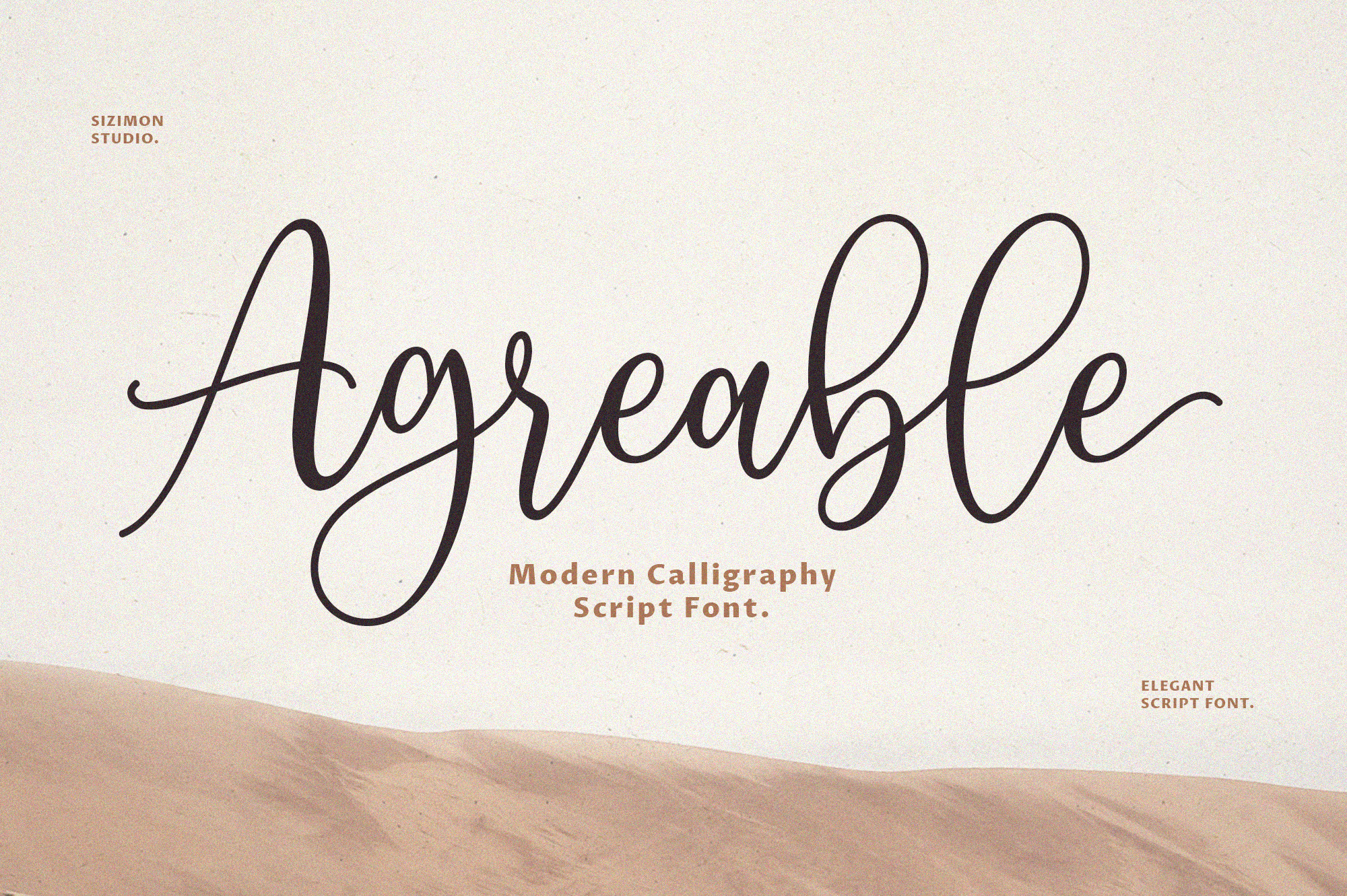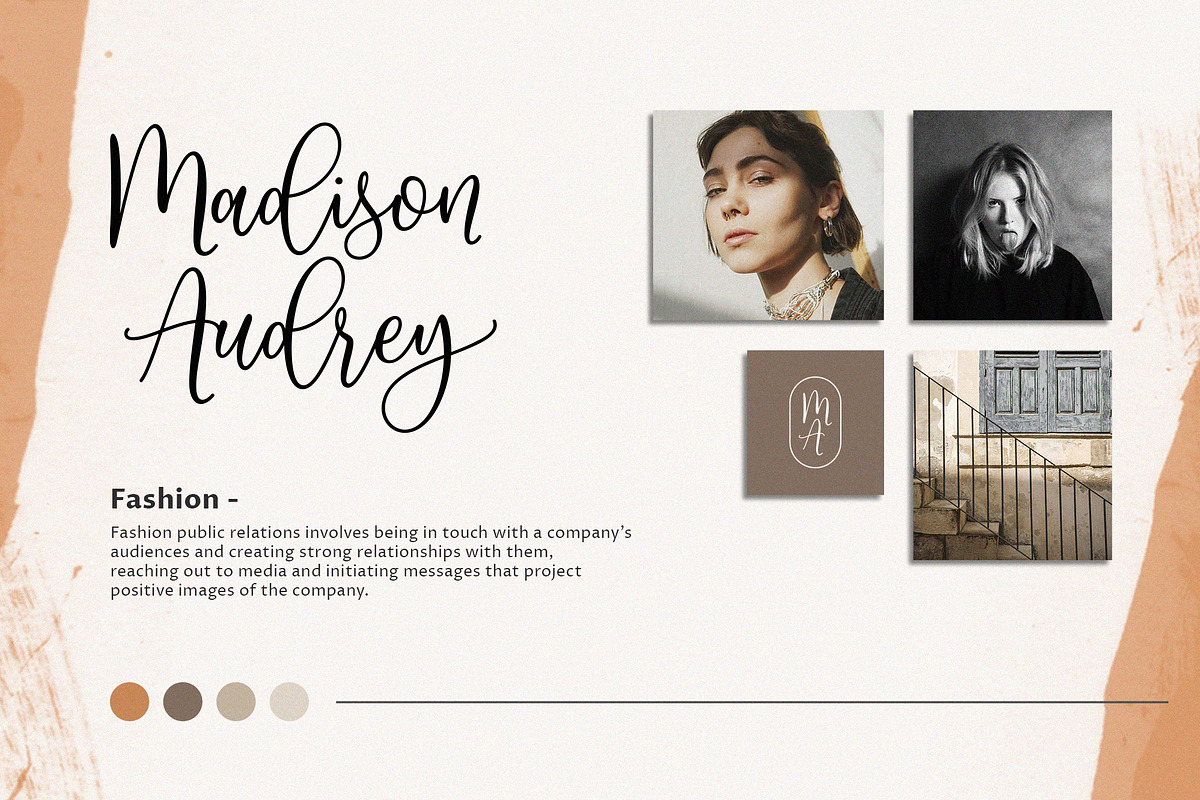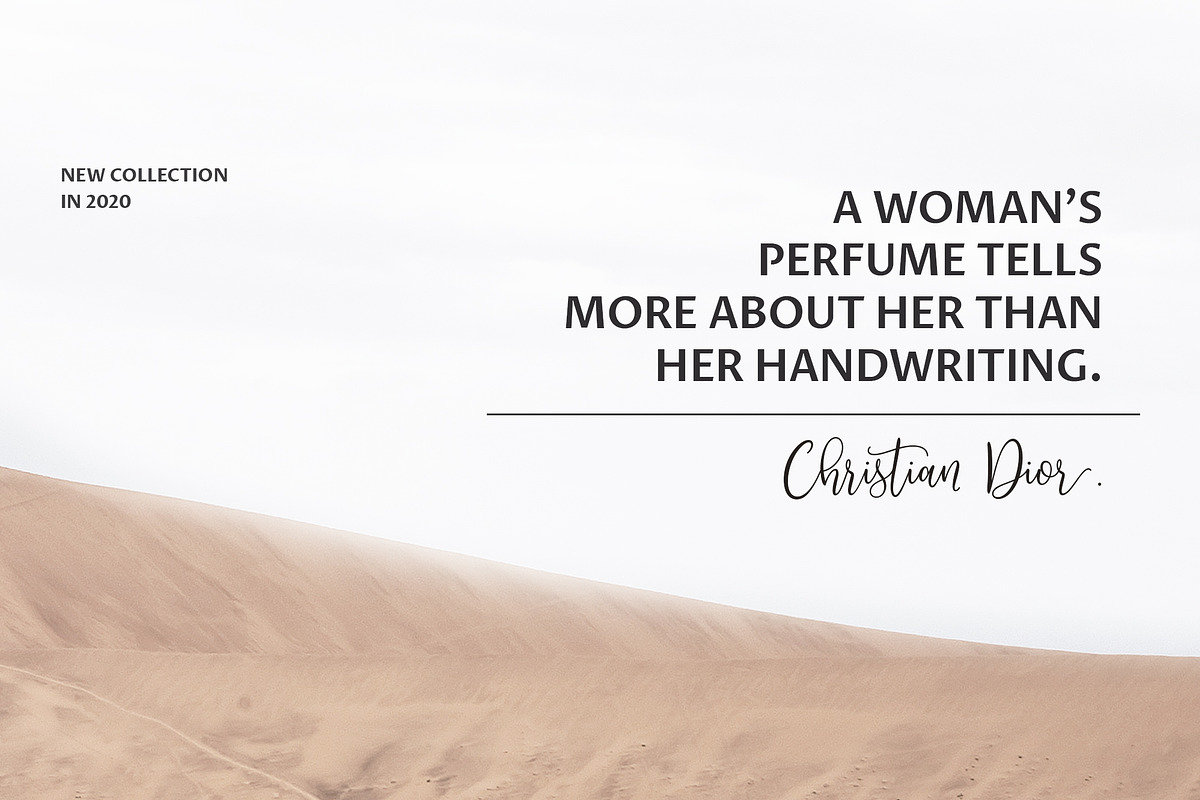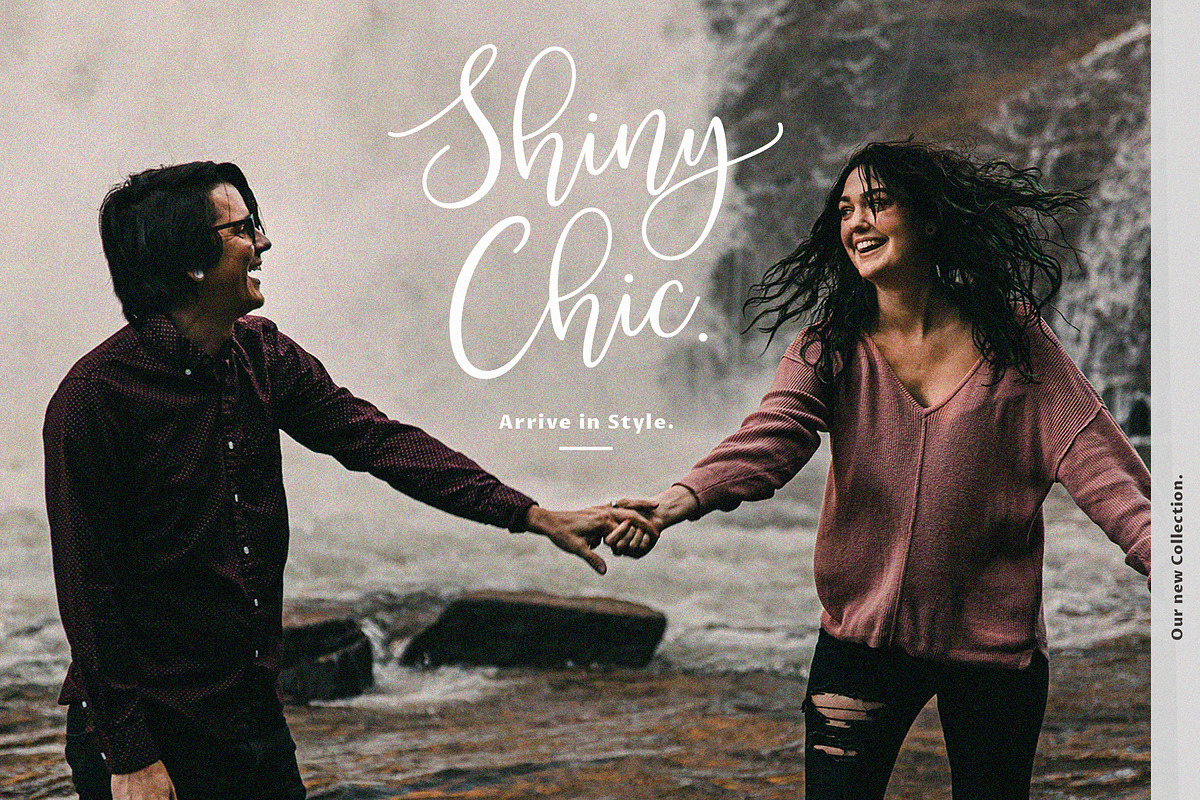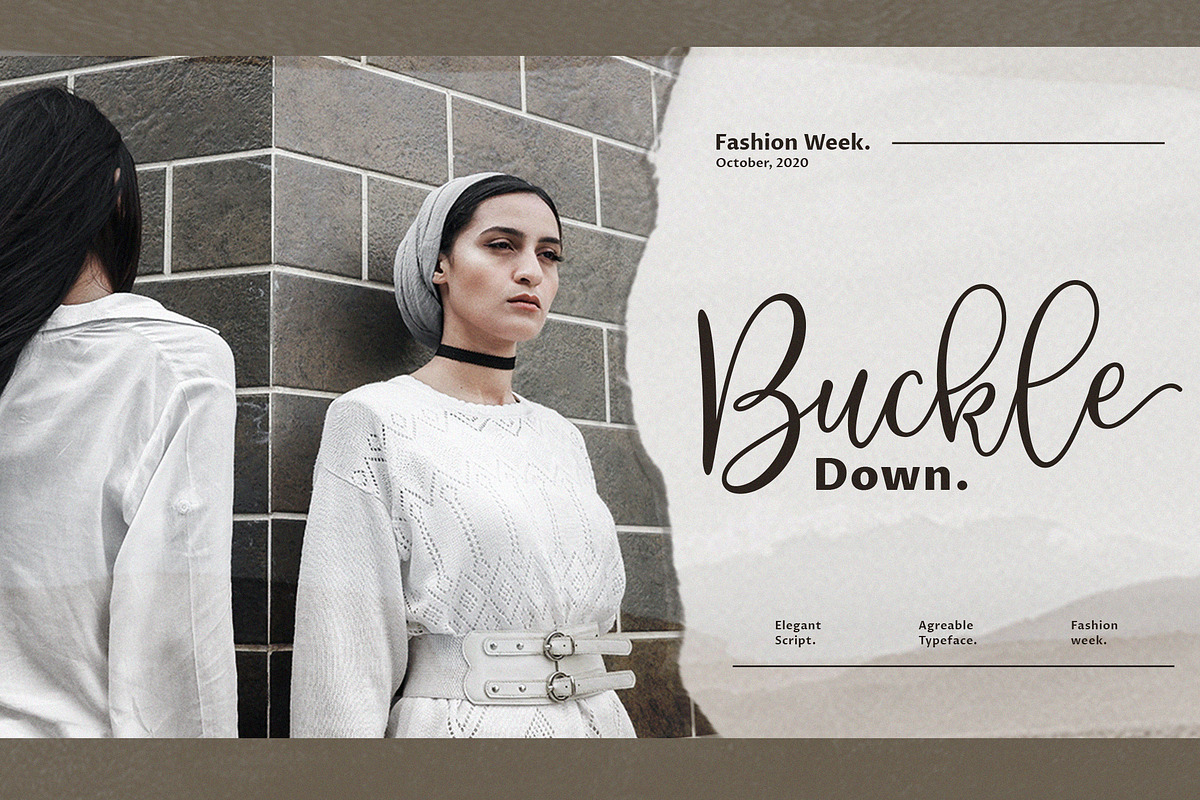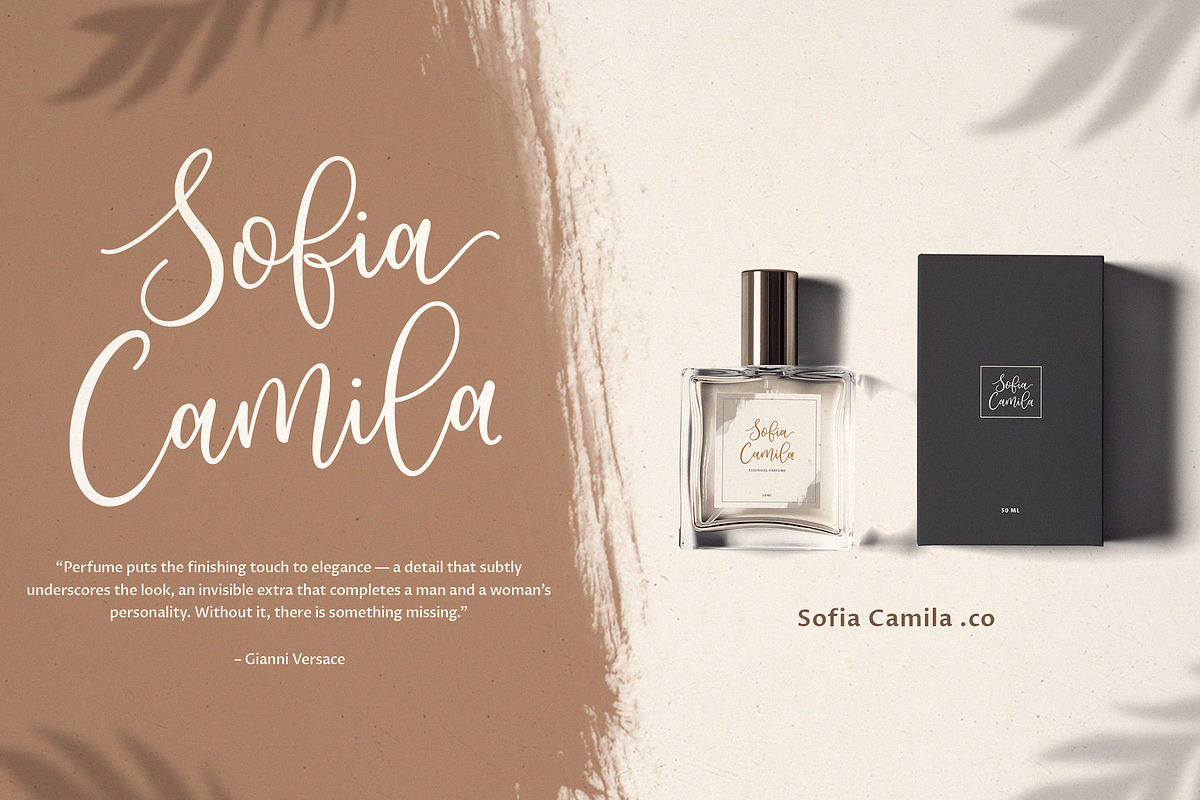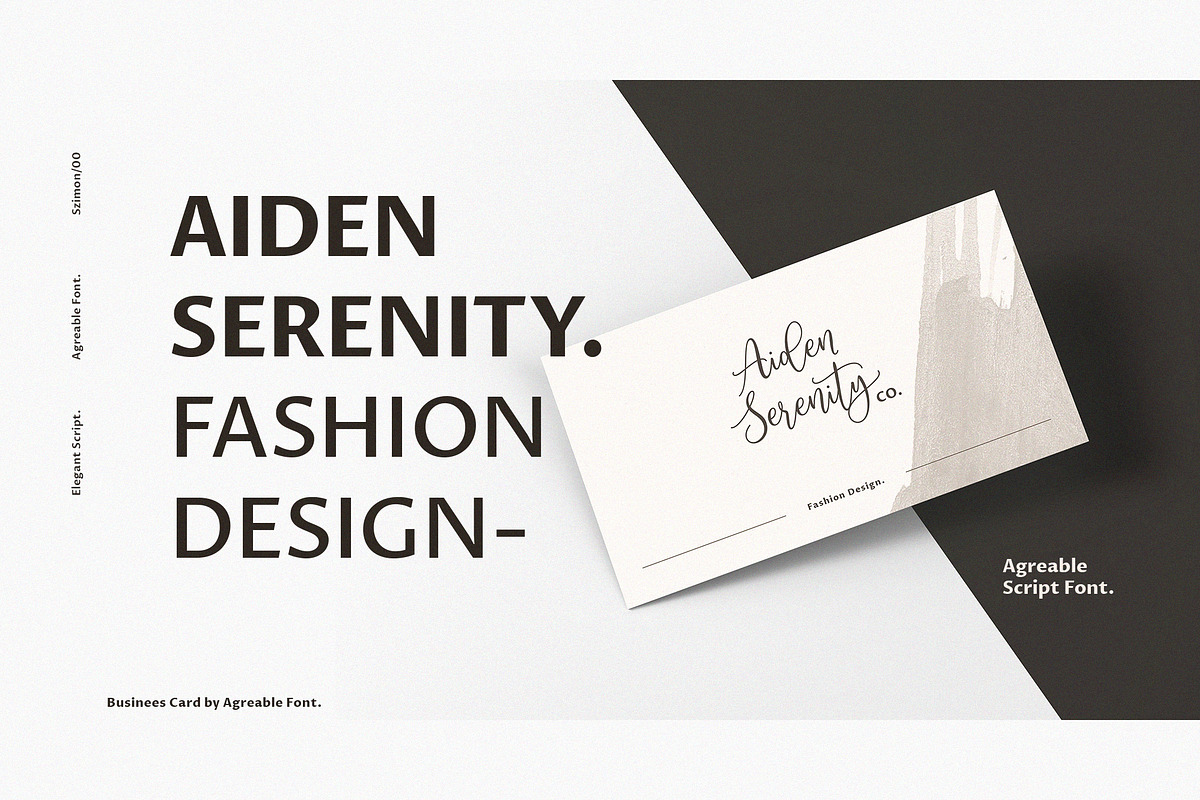
Agreable Modern Script Font!
Hello thanks for visiting our font Agreable Script! Since the font made it on the scent of luxury. Suitable to create beautiful hand-made typography in an instant. It is free-flowing & bouncy curves. Agreable is perfect for logos, printed quotes, invitations, cards, product packaging, headers and whatever your imagination holds.